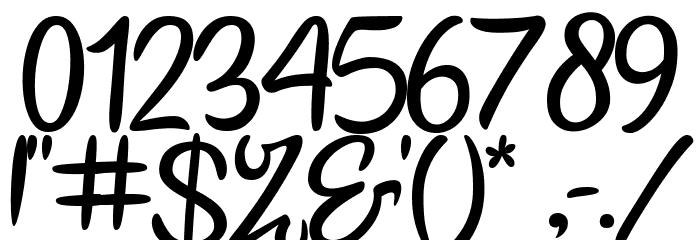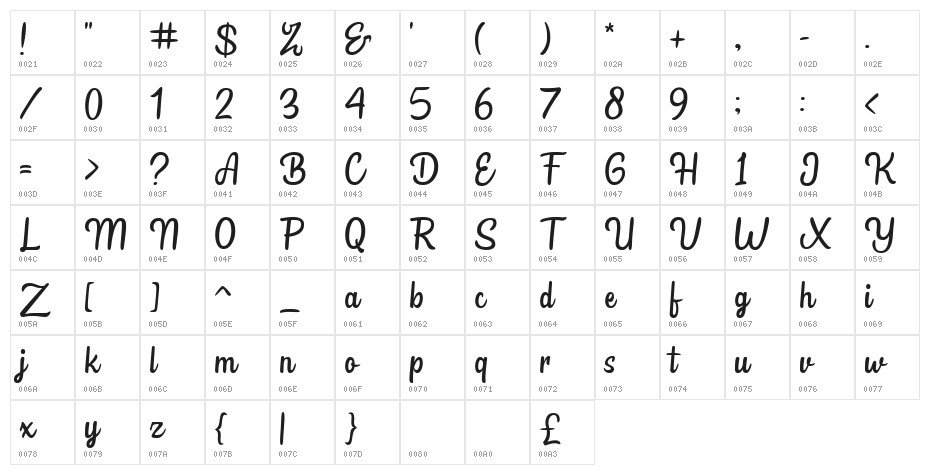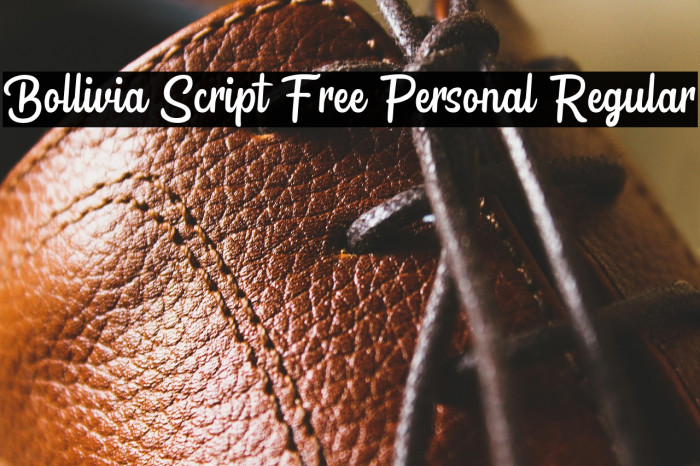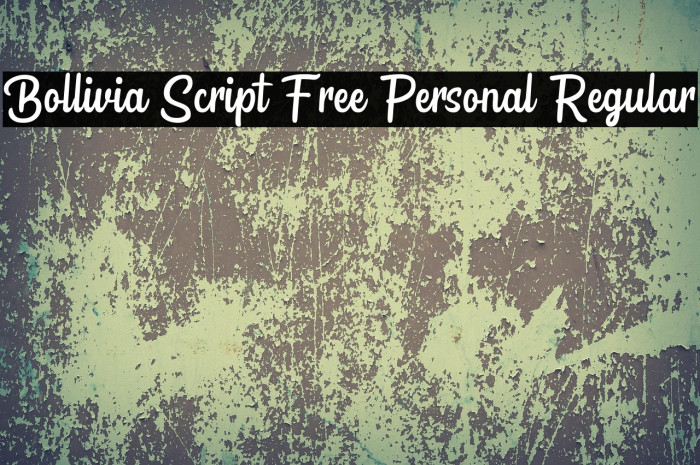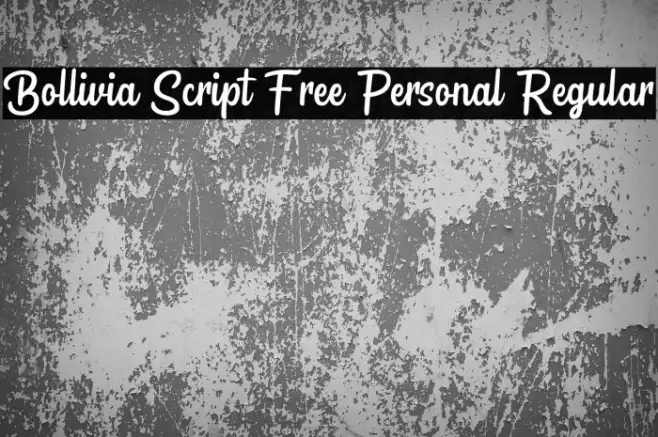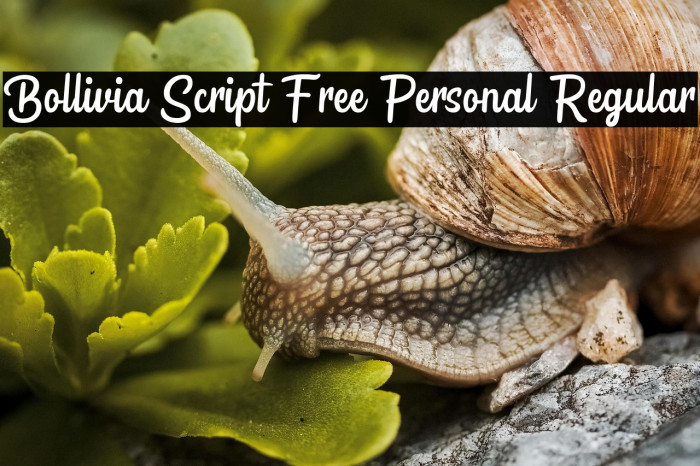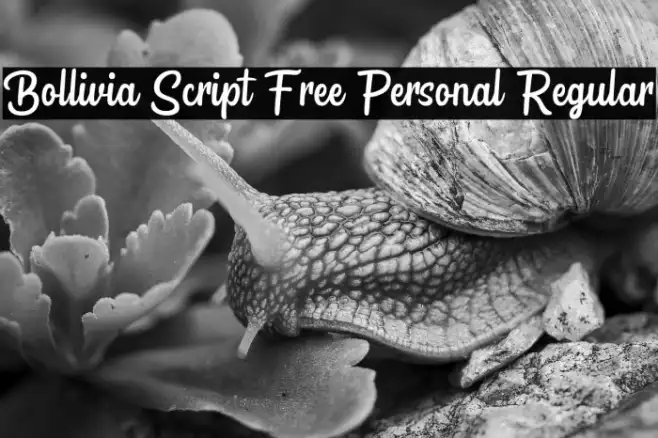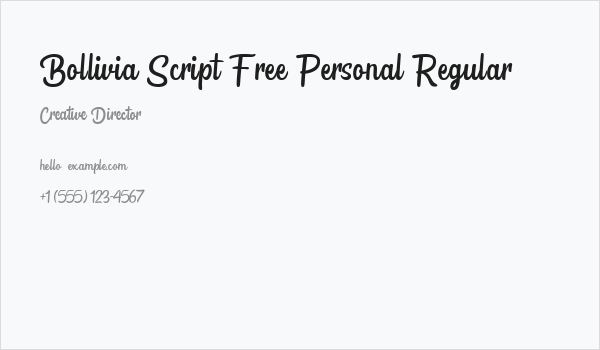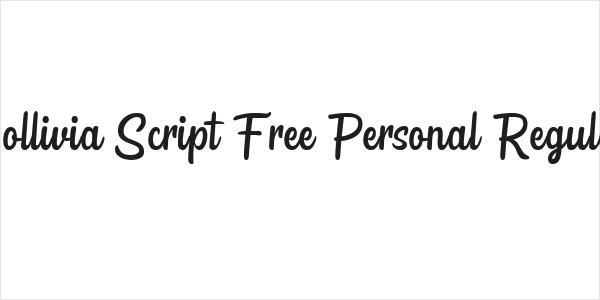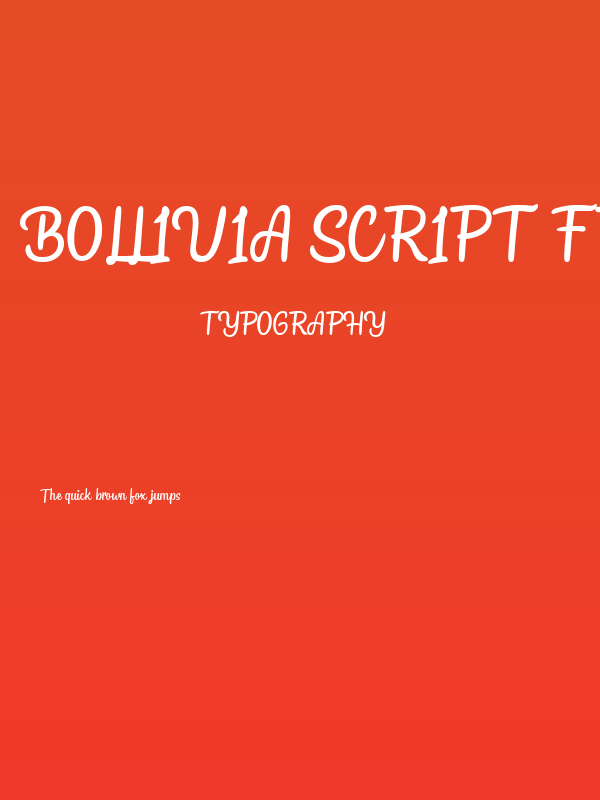
Bollivia Script Free Personal Regular Font
Bollivia Script Free Personal Regular Description
This font features a flowing, cursive style with smooth, rounded edges and a consistent stroke width. The uppercase letters are elegantly connected, creating a harmonious and fluid appearance. The lowercase letters maintain a similar style, with gentle curves and a slightly playful character. The numerals are bold and clear, matching the overall aesthetic of the alphabet. Special characters are designed with the same attention to detail, ensuring they blend seamlessly with the rest of the font. This script font exudes a sense of elegance and sophistication, making it suitable for a variety of creative applications.
Overall StyleElegant
Use CaseLogos, Invitations, Branding
Proposed ProjectsIdeal for wedding invitations, greeting cards, branding projects, and elegant logo designs.